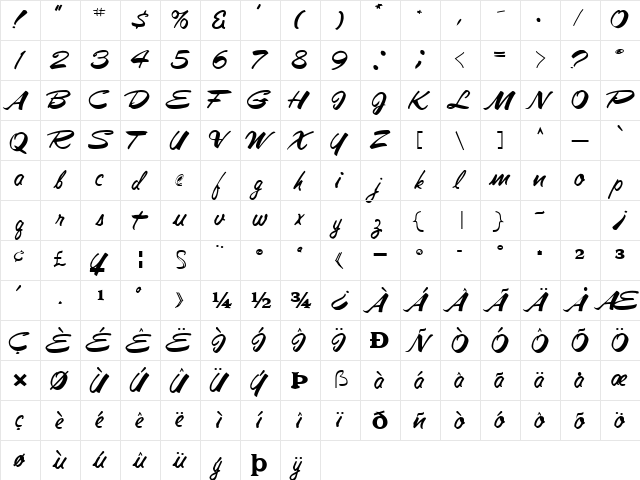
JesaBellFont72 Bold
Design Context for JesaBellFont72 Typeface
JesaBellFont72 is a composed and adaptable typeface that performs quietly and consistently across a wide range of design contexts. The heavy weight commands attention and anchors typographic hierarchies.